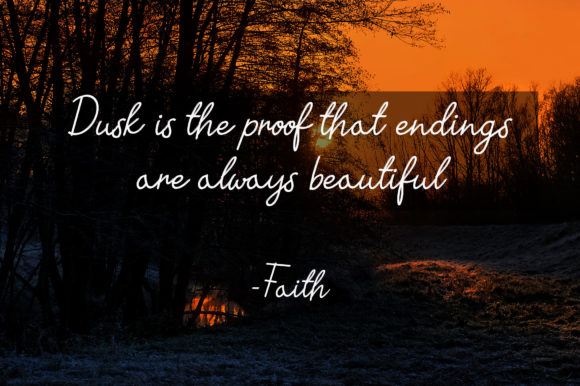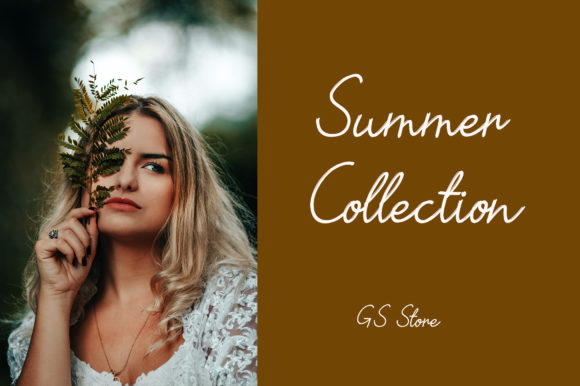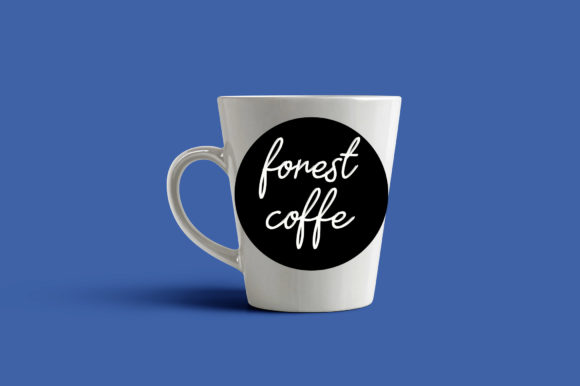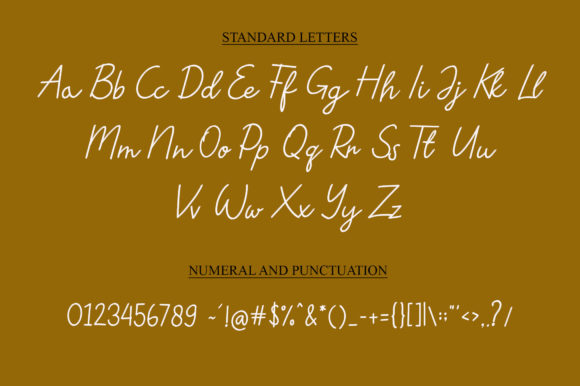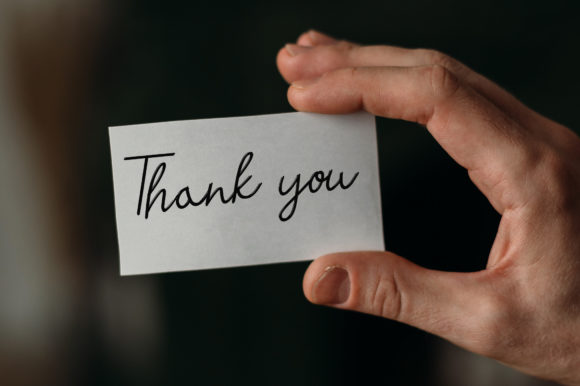
Discover the Timeless Elegance of Graduation Font
As designers, we’ve all had those moments where the perfect font comes along and sparks a new idea. It’s like finding a treasure chest overflowing with creative possibilities. For me, that moment arrived when I stumbled upon Graduation Font – a delicate and elegant handwritten font that has been a game-changer in my design process.
With its distinct and well-balanced letters, Graduation Font is a masterpiece that can elevate any design project. Whether you’re creating a wedding invitation, a greeting card, or a logo, this font is sure to impress. Its versatility makes it a valuable addition to any designer’s toolkit, and its unique style is sure to fall in love with anyone who sees it.
So, if you’re looking to add a touch of sophistication and elegance to your designs, look no further than Graduation Font. This font is a must-have for any designer who wants to create spectacular designs that leave a lasting impression.
Graduation Font Key Features
- Unique Characteristics: The font features a unique, celebratory feel, with elegant and flowing lines, making it perfect for graduation-themed designs, certificates, and other special occasions.
Graduation Font Review
Overall, I’d say the Graduation Font is a unique and eye-catching choice for any design project. ✨ The font’s bold and playful script style is sure to grab attention and evoke a sense of celebration. It’s perfect for projects related to graduation, achievement, or milestones. ✨
- Unique and attention-grabbing script style
- Perfect for projects related to graduation, achievement, or milestones
- Good for creating a celebratory and festive atmosphere
However, there are some limitations to consider. ⚠️ The font may be too playful or immature for certain projects, and its bold style may be overwhelming in smaller font sizes. Additionally, the font’s script style can make it difficult to read in certain contexts.
- May be too playful or immature for certain projects
- Bold style may be overwhelming in smaller font sizes
- Script style can make it difficult to read in certain contexts
Overall, I think the Graduation Font is a great choice for projects that require a bold and celebratory feel. However, it’s essential to consider the context and potential limitations before making a final decision.
The Graduation Font is commonly used for:
- Graduation certificates and diplomas
- Formal invitations and announcements